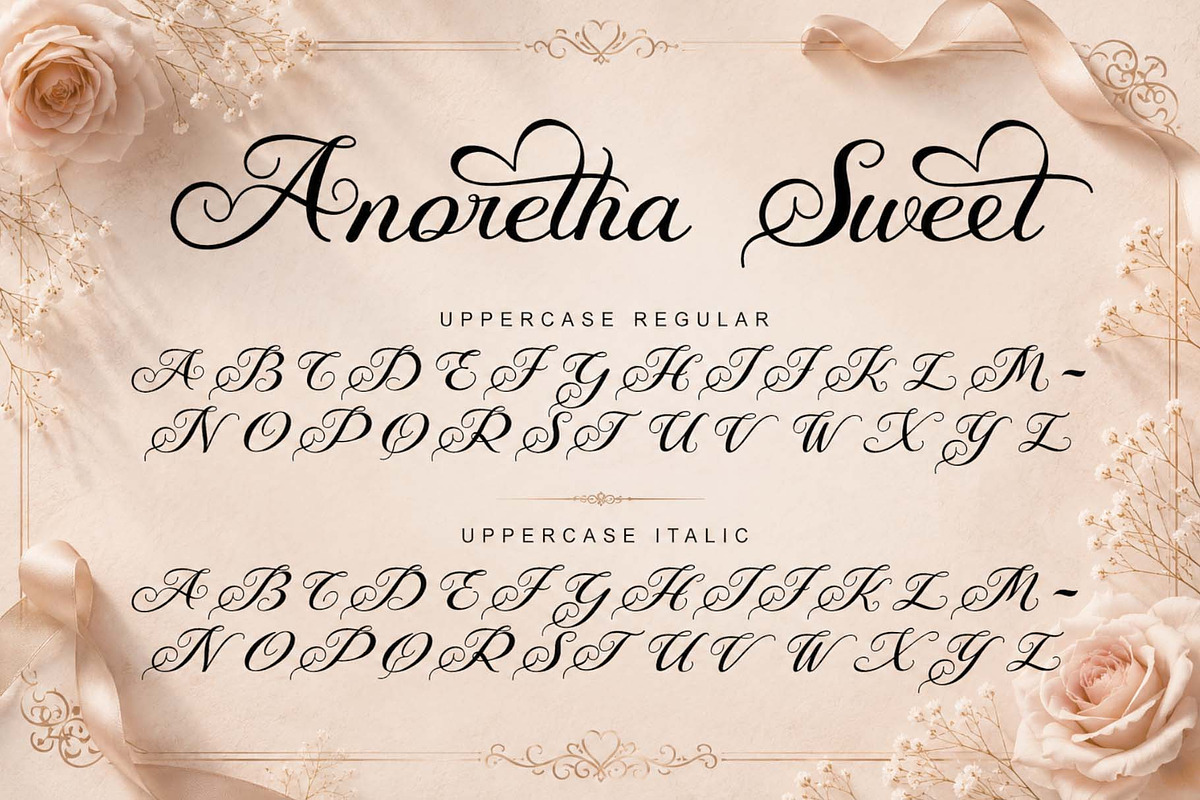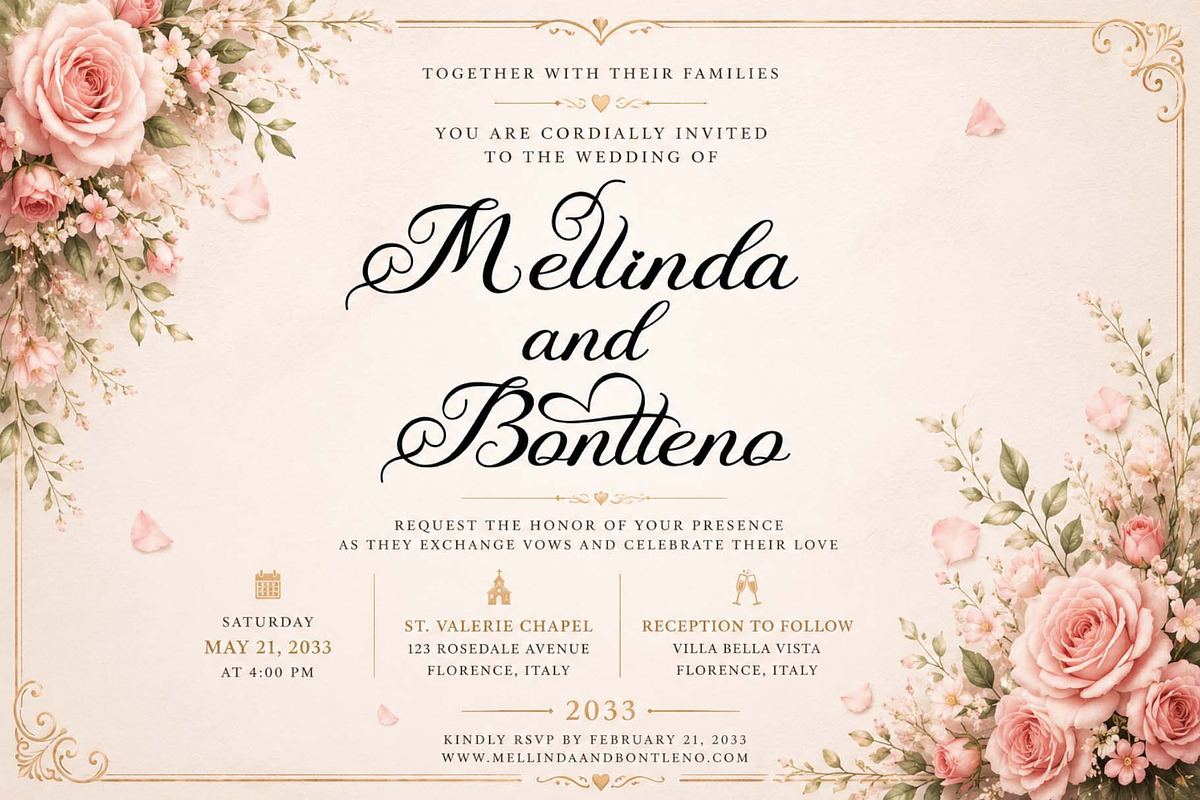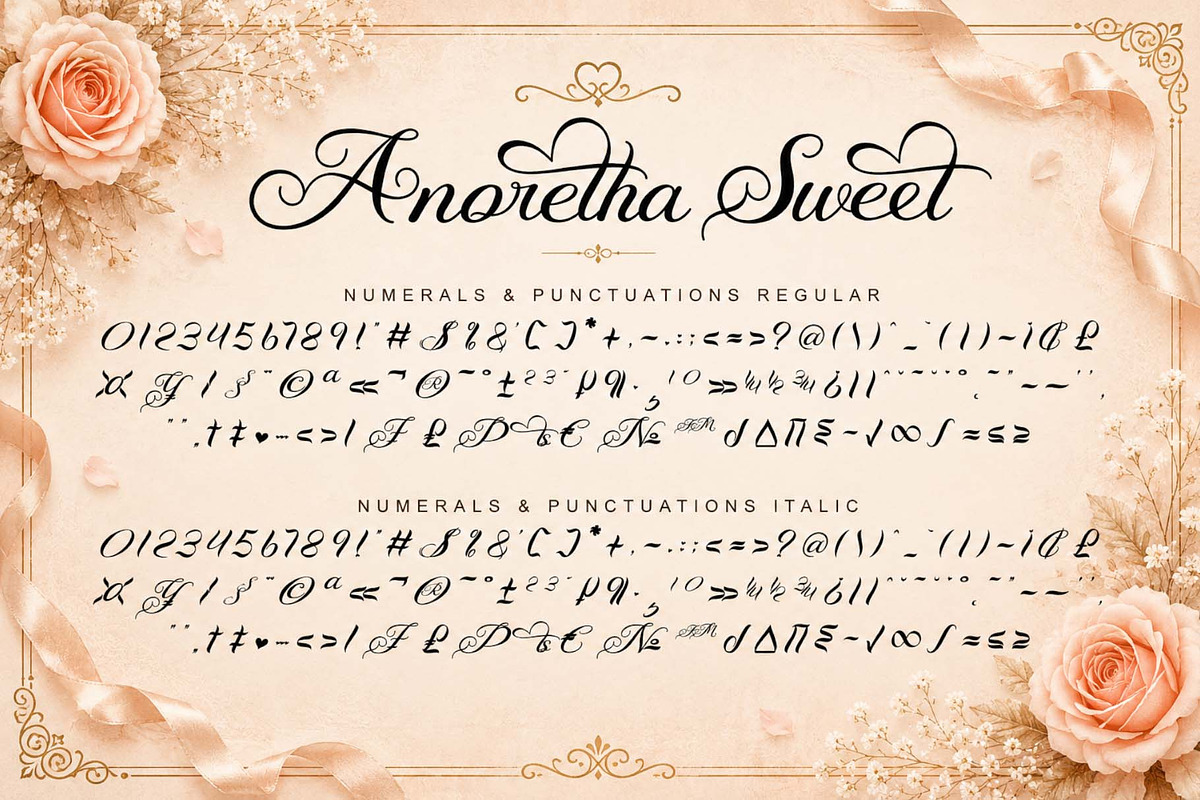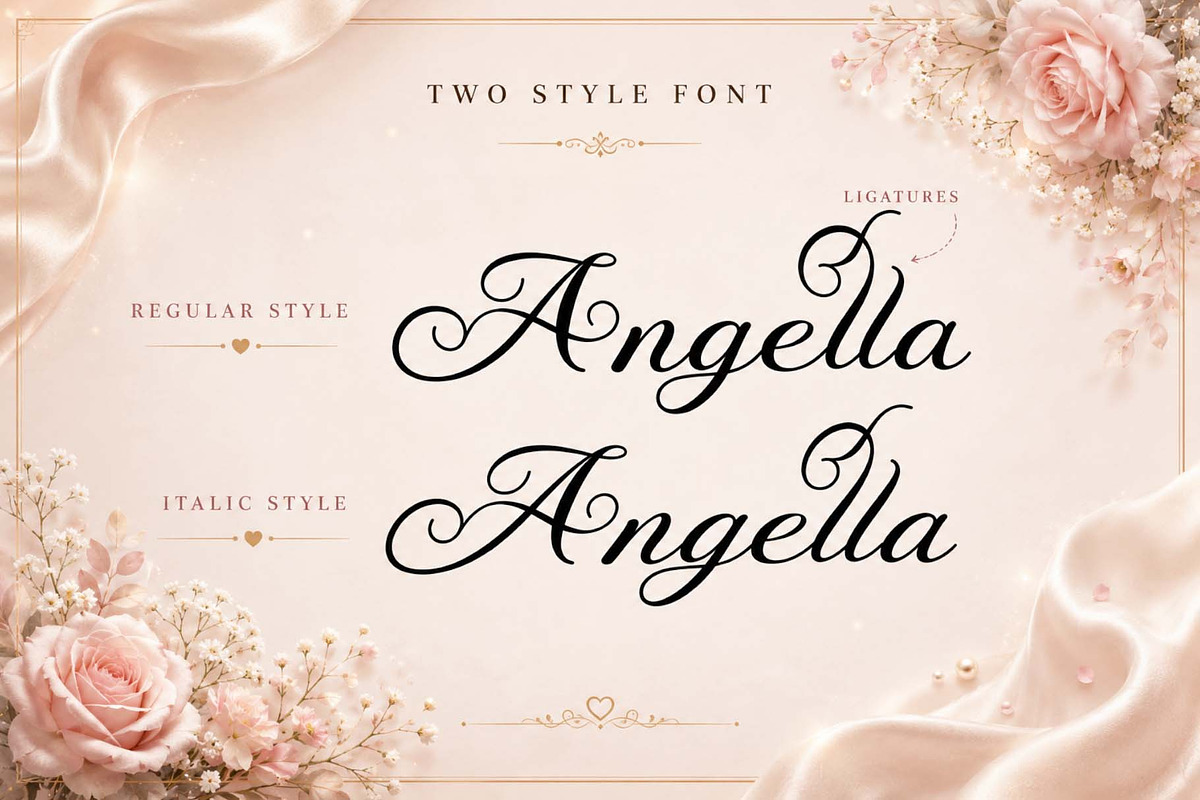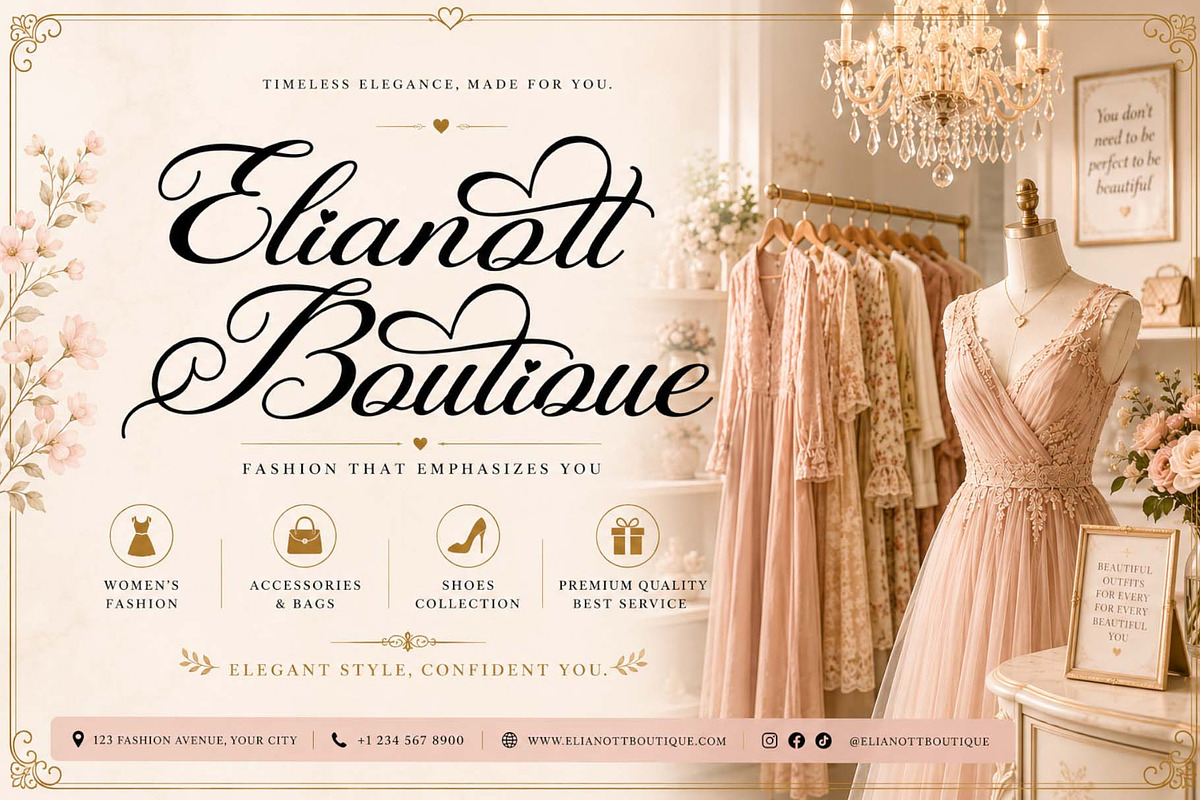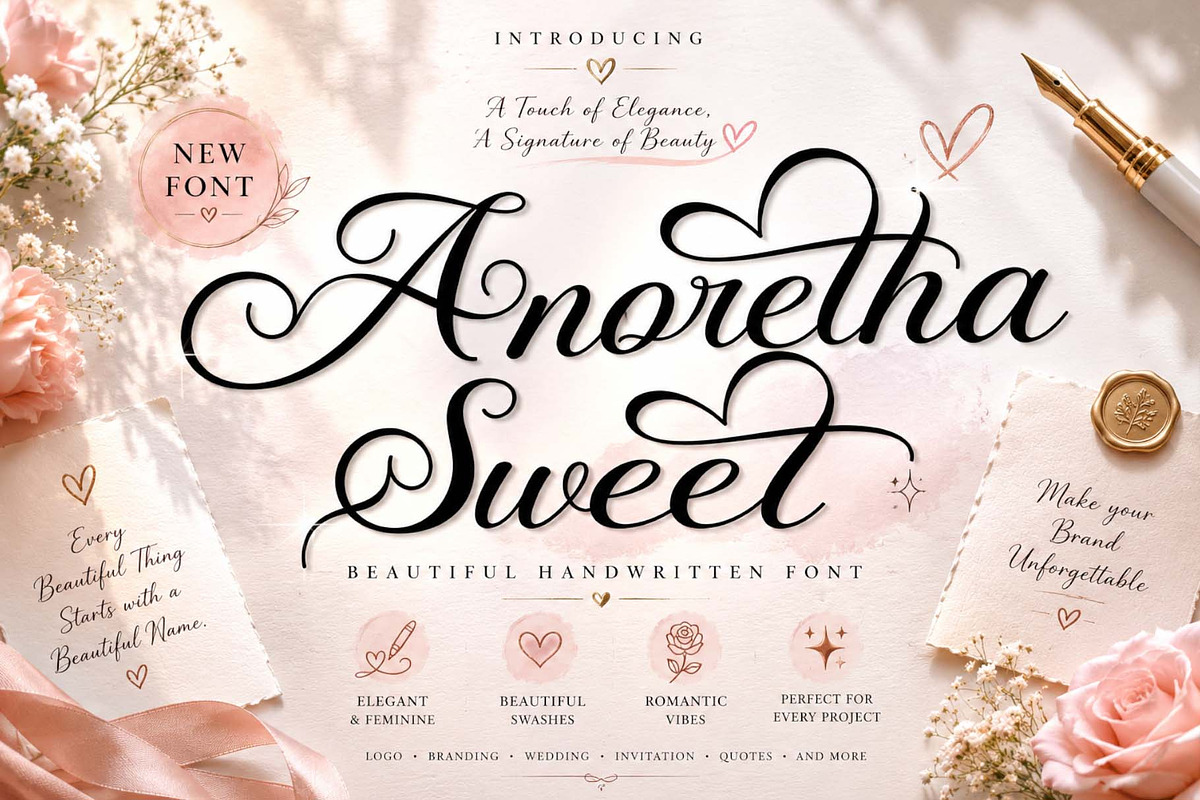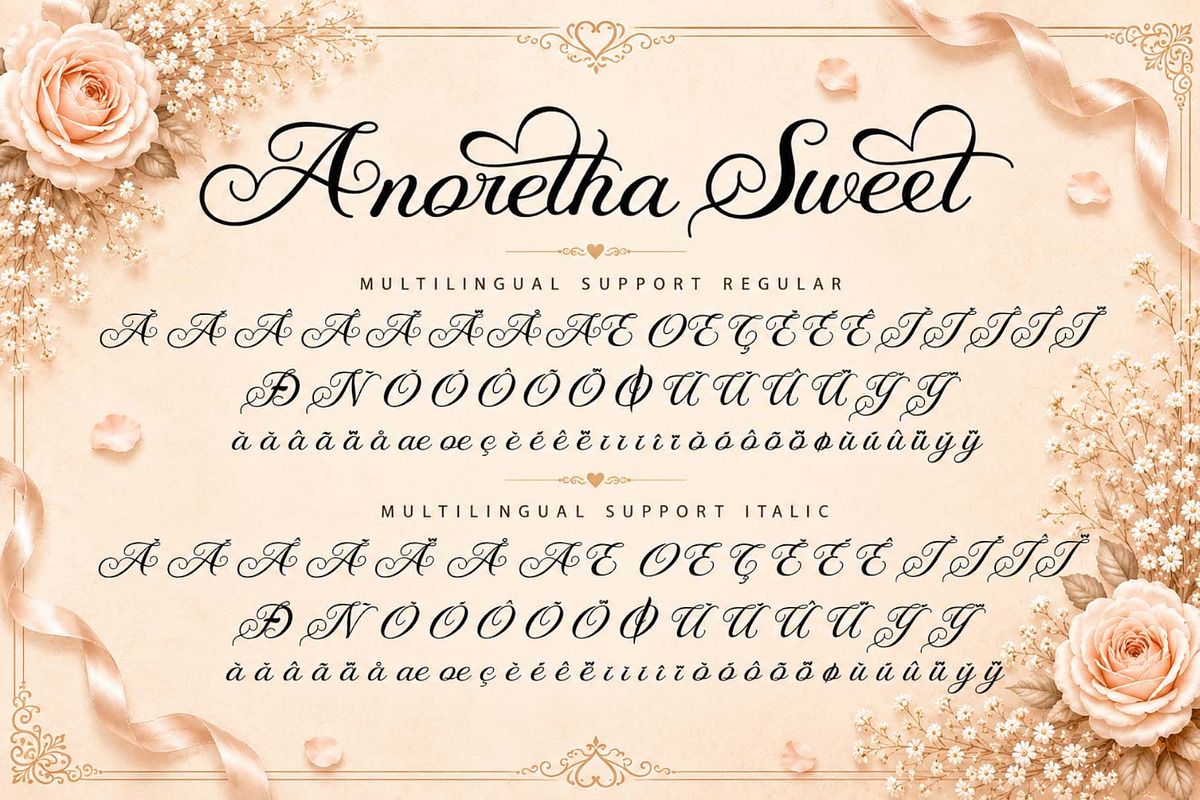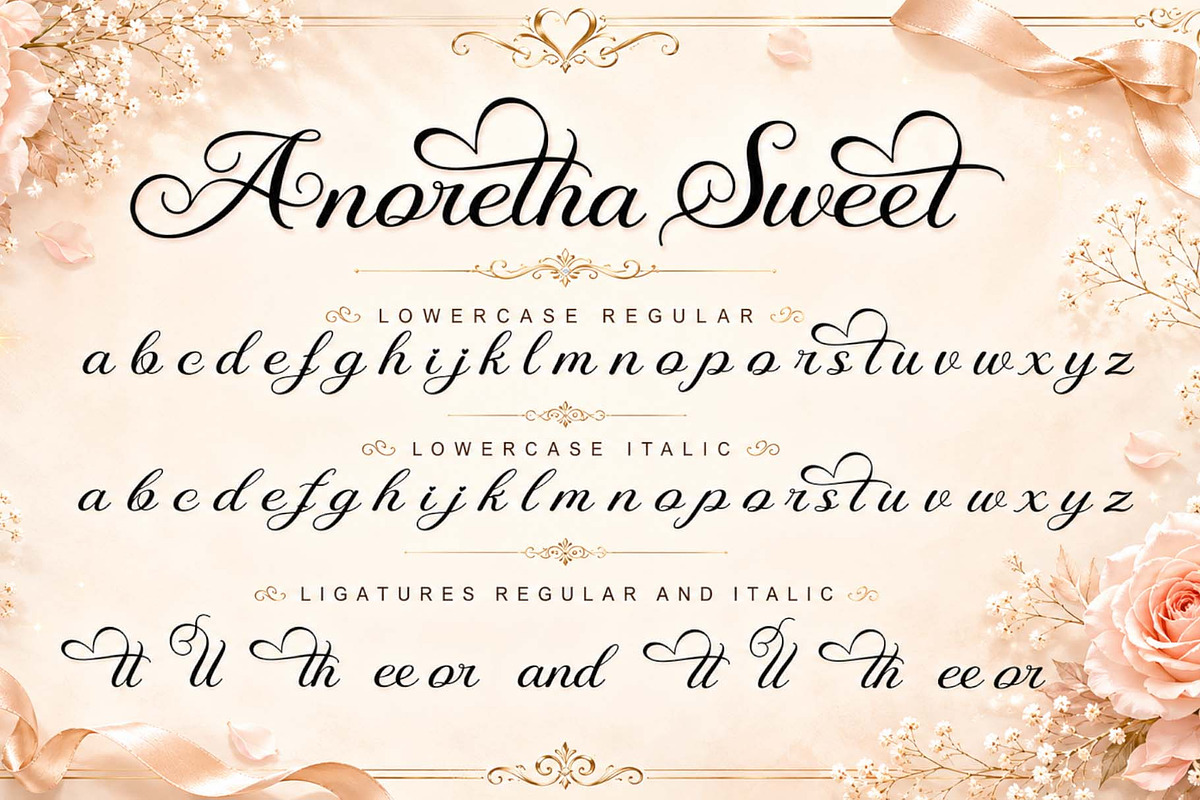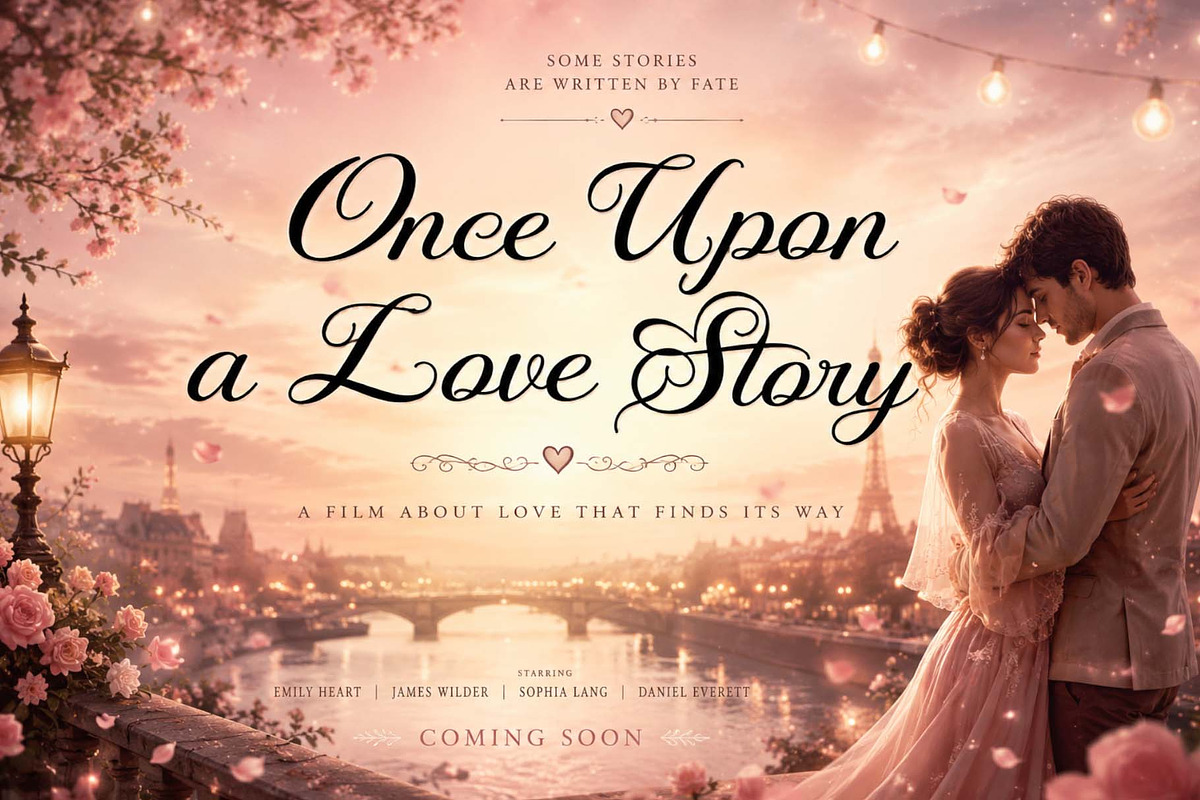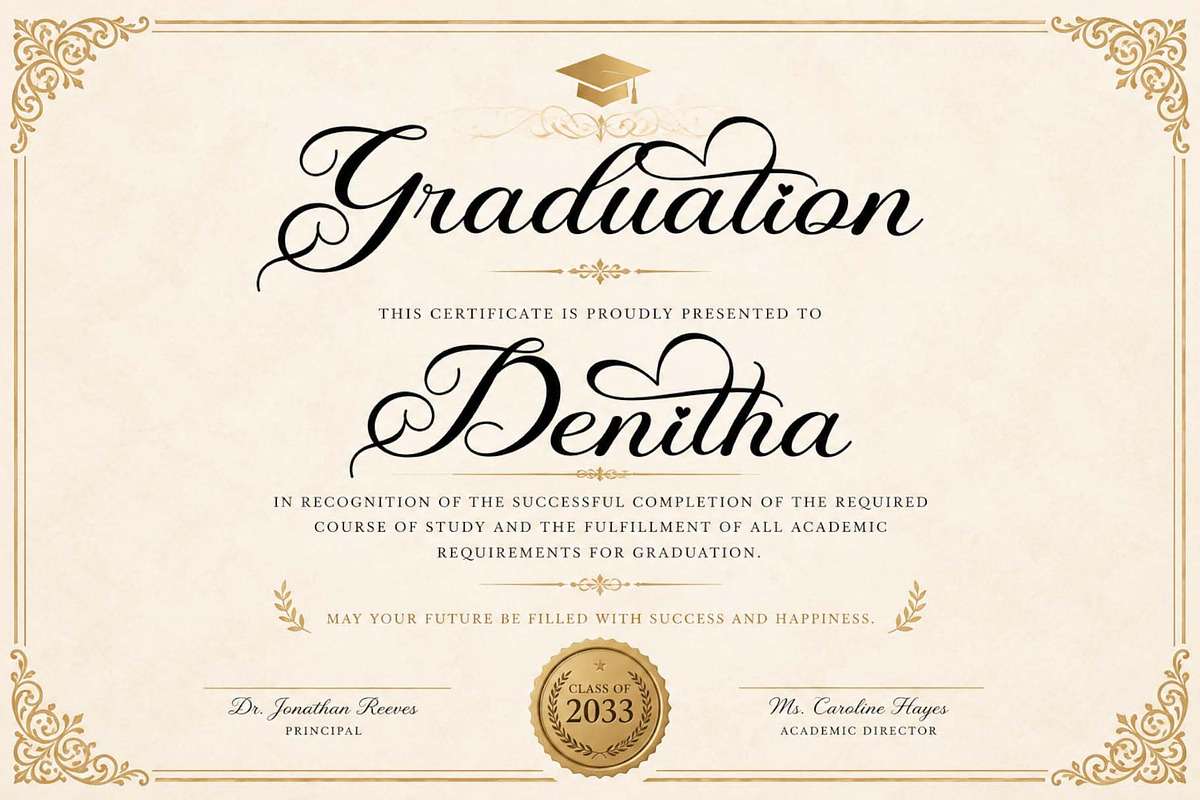
Anoretha Sweet
"Anoretha Sweet" is a beautiful and elegant handwritten font. Available in two styles: regular and italic. It features uppercase and lowercase letters, numbers, punctuation, multilingual support, and ligatures. It's perfect for romantic movies, wedding invitations, photography, floral arrangements, social media, advertisements, YouTube, Christmas, summer, Valentine's Day, song titles, movie titles, and more.